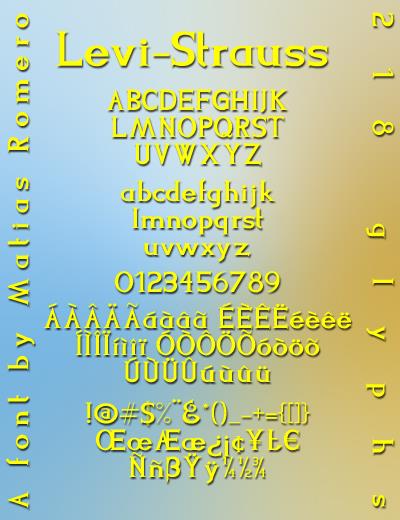
Free Levi-Strauss Font
Free levi-strauss font for any designer that is looking to display their design professionally. This free typeface file was found from the amazing source called Font Space. This is absolutely fancy font so you can easily make world-class designs.